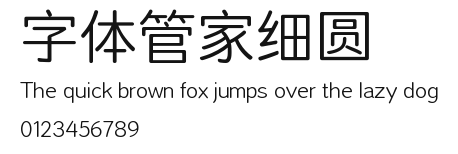
字体管家细圆 Preview
• Font Name: 字体管家细圆
• Manufacturer: 北京奇思众和科技有限公司
• Description: AaRoundLi is a fantastic font with excellent features designed for user interfaces and electronic communications.
About 字体管家细圆.ttf
字体管家细圆.ttf is a modern, elegant sans-serif font designed for ultimate readability and visual harmony. Perfect for branding, headlines, web design, and print materials.